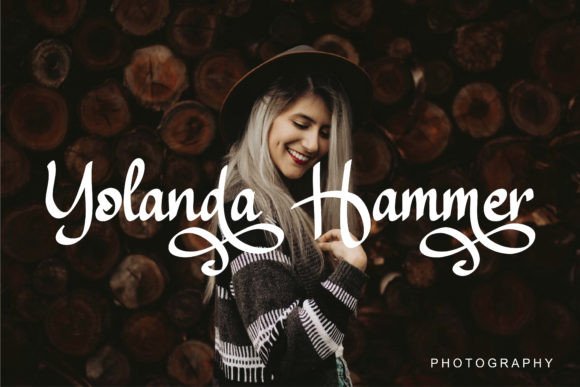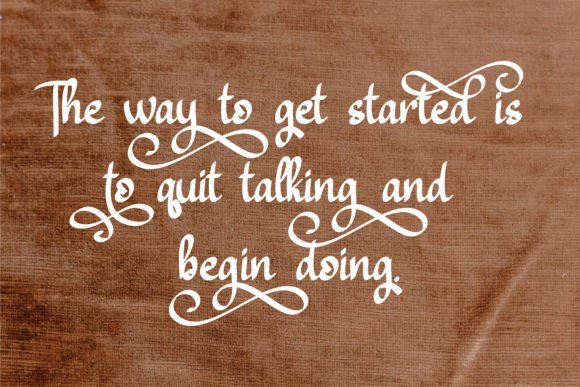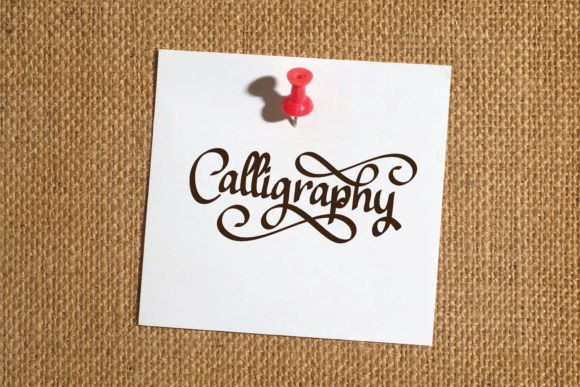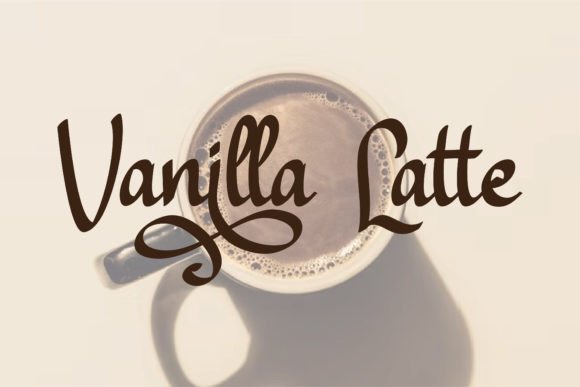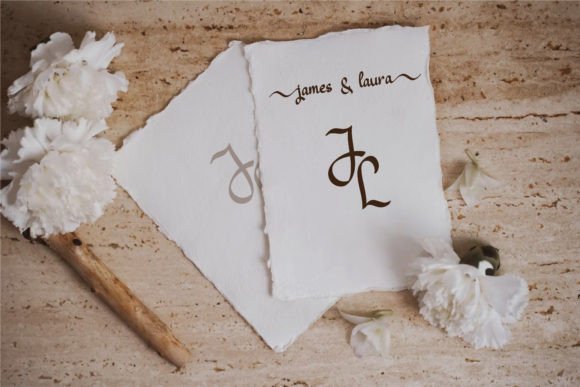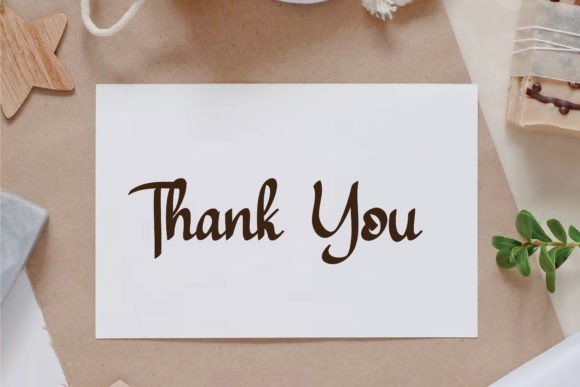
Calligraphia Font
About Calligraphia Font
“Calligraphia” is a truly exquisite and elegant handwritten font that exudes a sense of uniqueness and stunning impact. This font possesses the ability to infuse a touch of luxury into any design project you embark upon.
“Calligraphia” font stands out for its graceful and distinctive style, making it a perfect choice when you want to add an element of sophistication and opulence to your work. It is well-suited for a wide range of design applications where elegance is paramount.
Whether you’re working on wedding invitations, high-end branding, luxury packaging, certificates, or any project that demands a sense of luxury and exclusivity, “Calligraphia” is the font that will help you achieve that luxurious sparkle.
One of the standout features of “Calligraphia” is its PUA encoding, which stands for Private Use Area. This encoding simplifies access to a wide array of glyphs and swashes, providing you with a plethora of design options. You can effortlessly incorporate unique characters and decorative elements to create text that is both personalized and visually stunning.
In summary, “Calligraphia” is more than just a font; it’s a design asset that adds a touch of elegance and luxury to your work. Its unique and stunning impact elevates your projects, making them stand out and leave a lasting impression. Embrace “Calligraphia” and watch your creative visions come to life with a luxurious spark that captivates your audience.